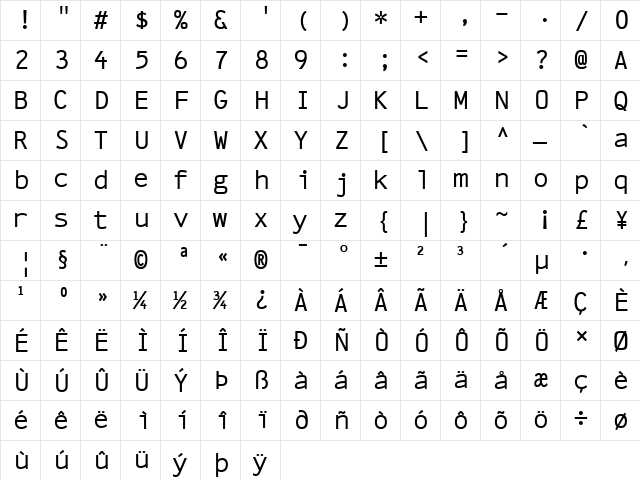
Linefeed Regular
Design Context for Linefeed Typeface
Linefeed takes a measured approach to typography — its balanced proportions and neutral character make it a reliable workhorse for both digital and print work.
Pro Tip: Use Linefeed in both headline and body roles to test its range before committing to a single application.